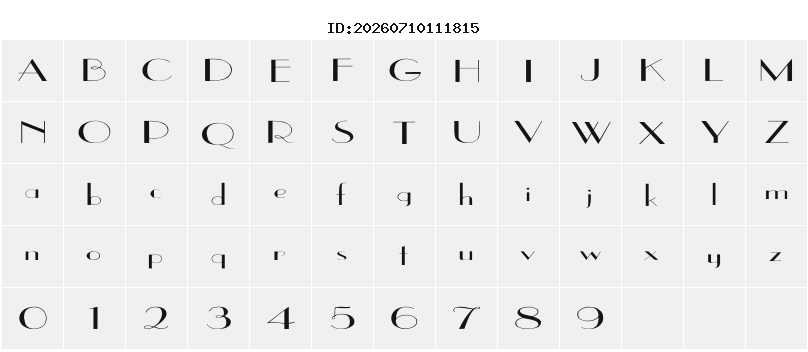
About EastSide Ex.ttf
EastSide Ex.ttf is a modern, elegant sans-serif font designed for ultimate readability and visual harmony. Perfect for branding, headlines, web design, and print materials.